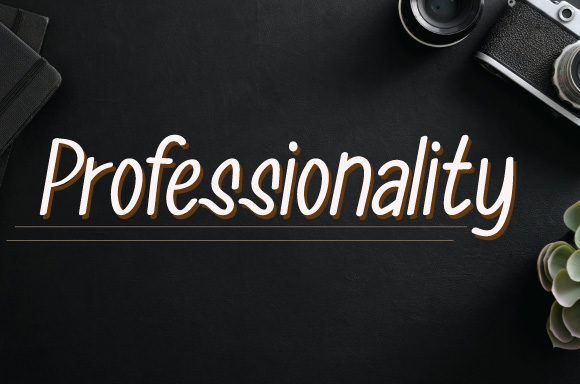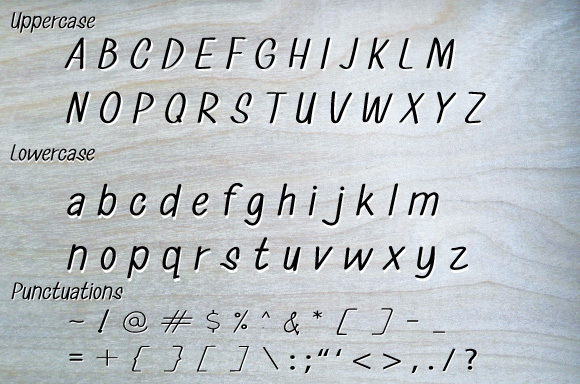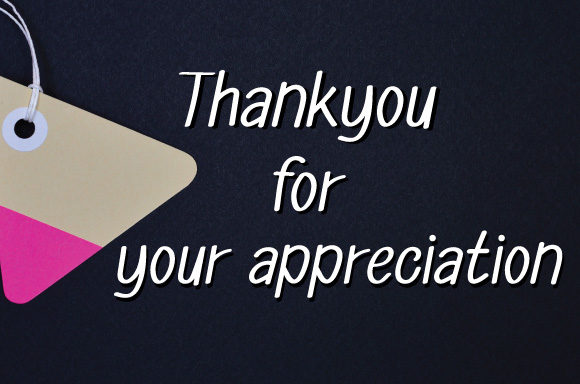
Discover the Charm of Handletter Font: Elevate Your Designs with a Personal Touch
Are you tired of using the same old fonts in your designs? Look no further than Handletter Font, a clean and casual handwritten font that’s sure to add a personal touch to your creative projects. With its natural and unique style, Handletter Font is incredibly fitting for a wide range of design ideas, from branding and packaging to invitations and crafts.
Handwritten fonts have a way of adding a level of personality and whimsy to any design. They evoke a sense of human touch and can make even the most mundane design feel special. Handletter Font takes this to the next level with its clean and casual style, making it perfect for designers and crafters who want to add a bit of elegance to their work.
What Makes Handletter Font Special?
So, what sets Handletter Font apart from other handwritten fonts? Here are just a few of its unique features:
- Natural and Unique Style: Handletter Font has a one-of-a-kind style that’s both natural and effortless. Its unique letterforms and subtle imperfections make it feel like it was written by hand.
- Clean and Casual: Unlike some handwritten fonts that can feel messy or over-the-top, Handletter Font strikes the perfect balance between clean and casual. It’s perfect for designs that need a bit of personality without feeling too fussy.
- Highly Versatile: Whether you’re working on a branding project, creating invitations, or crafting a DIY project, Handletter Font is incredibly versatile. Its neutral style makes it easy to pair with a wide range of other fonts and design elements.
Uses for Handletter Font
So, what can you use Handletter Font for? The possibilities are endless! Here are a few ideas to get you started:
- Branding and Packaging: Add a personal touch to your brand with Handletter Font. Use it for logos, business cards, or packaging labels to make your brand stand out.
- Invitations and Stationery: Create beautiful invitations, greeting cards, and stationery with Handletter Font. Its elegant style is perfect for weddings, baby showers, and other special occasions.
- Crafts and DIY Projects: Handletter Font is perfect for crafters and DIY enthusiasts. Use it to add a personal touch to scrapbooking, journaling, and other paper crafts.
- Digital Designs: Use Handletter Font in digital designs like social media graphics, blog headers, and email newsletters to add a bit of personality to your online presence.
Tips for Using Handletter Font
Here are a few tips for getting the most out of Handletter Font:
- Pair it with Other Fonts: Experiment with pairing Handletter Font with other fonts to create a unique and interesting design. Try pairing it with a bold sans-serif font for a striking contrast.
- Use it in Moderation: While Handletter Font is beautiful, it can be overwhelming if used too much. Use it sparingly to add a touch of personality to your design.
- Experiment with Colors: Handletter Font looks great in a variety of colors. Experiment with different colors and textures to find the perfect combination for your design.
Handletter Font is a versatile and beautiful handwritten font that’s perfect for designers and crafters who want to add a personal touch to their work. With its natural and unique style, clean and casual aesthetic, and highly versatile design, Handletter Font is sure to become a go-to font in your design arsenal. So why not give it a try? Download Handletter Font today and see how it can elevate your designs to the next level!